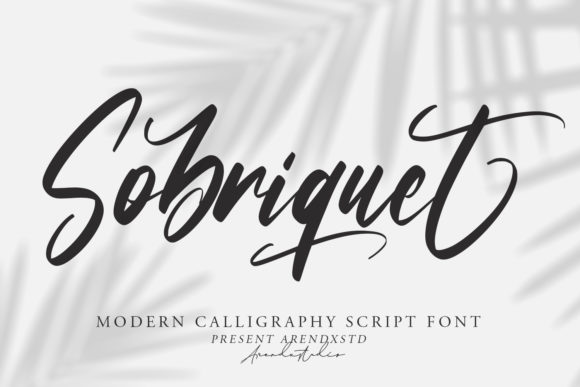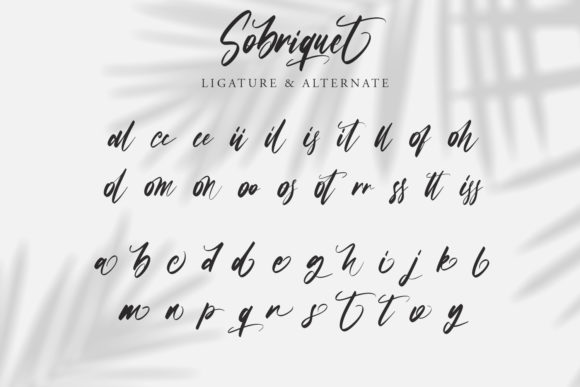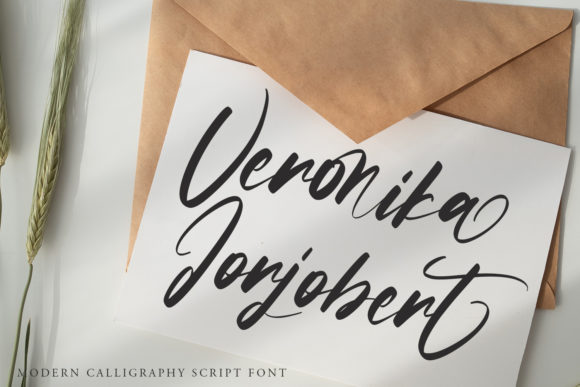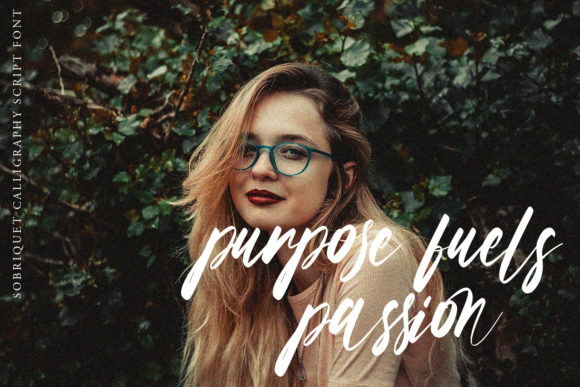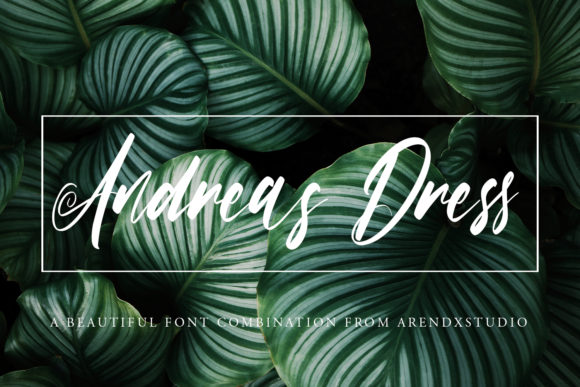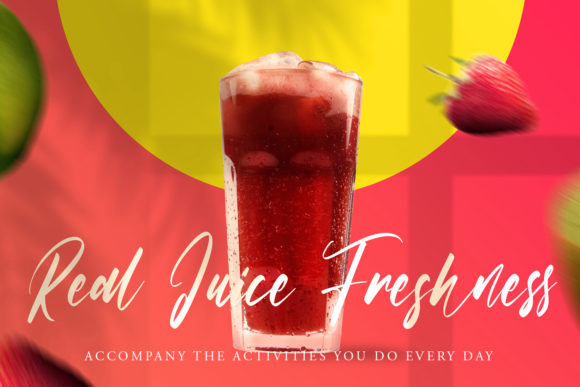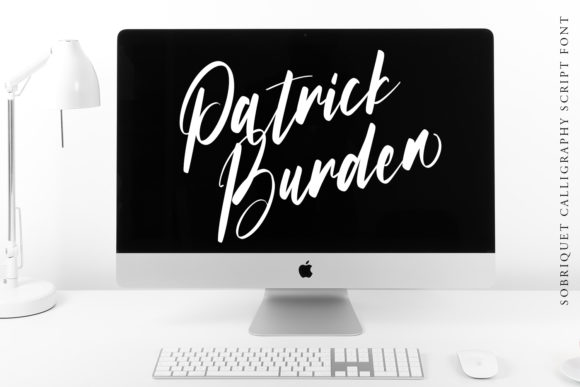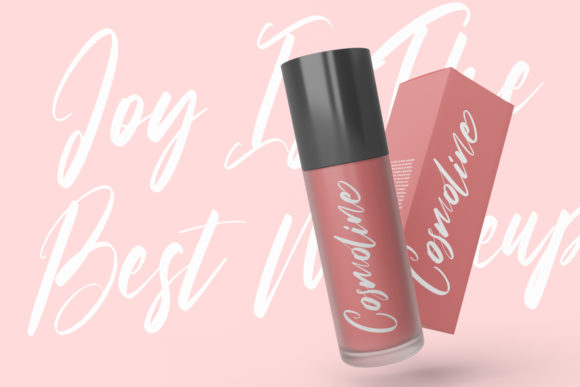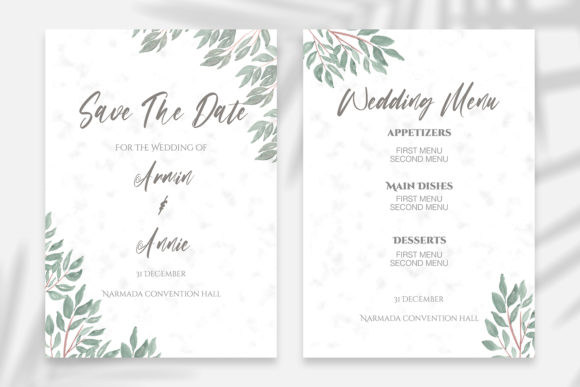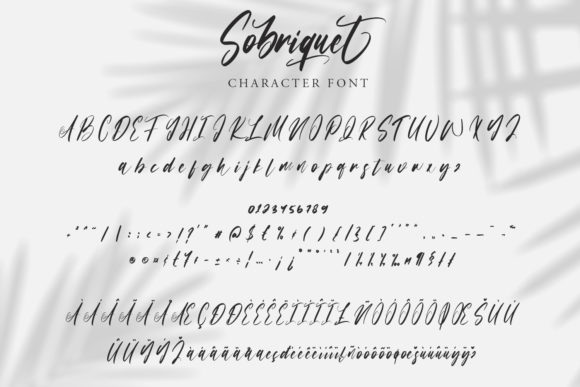
Sobriquet Font
About Sobriquet Font
Sobriquet is an elegant and nostalgic handwritten font. Fall in love with its completely different and timeless style and use it to create spectacular designs!